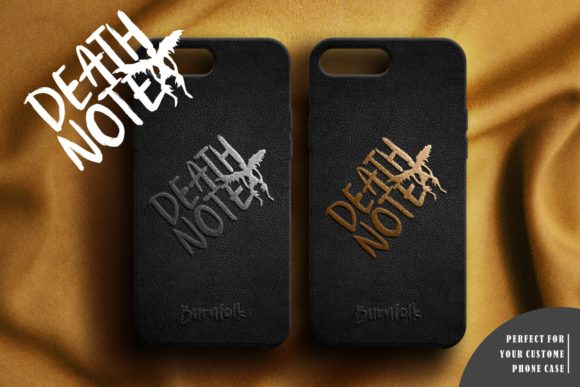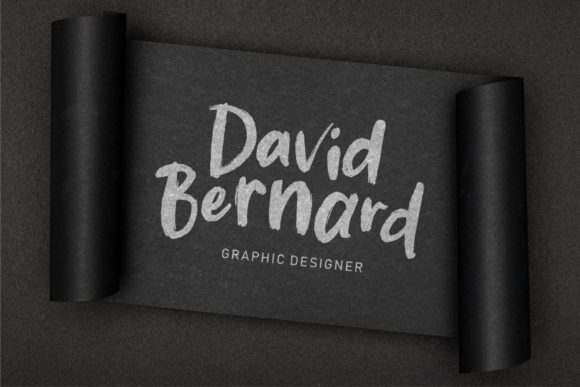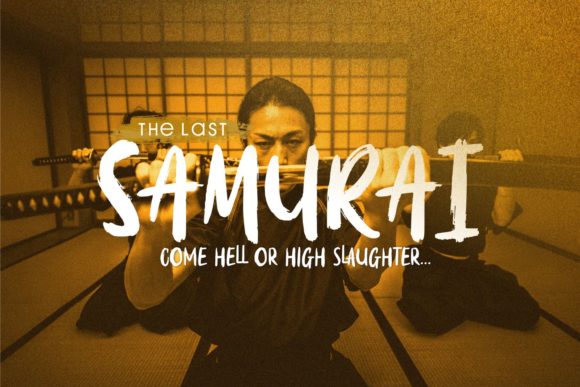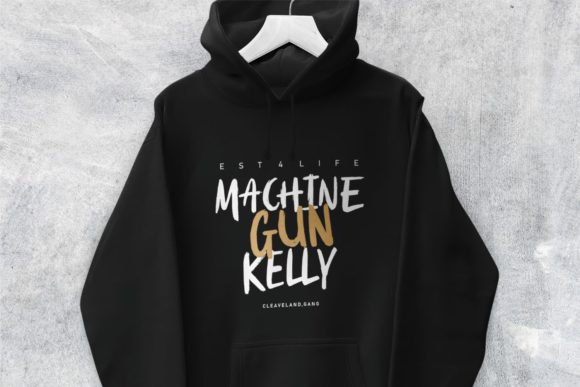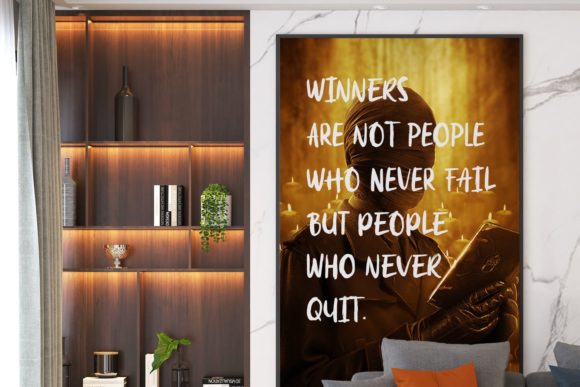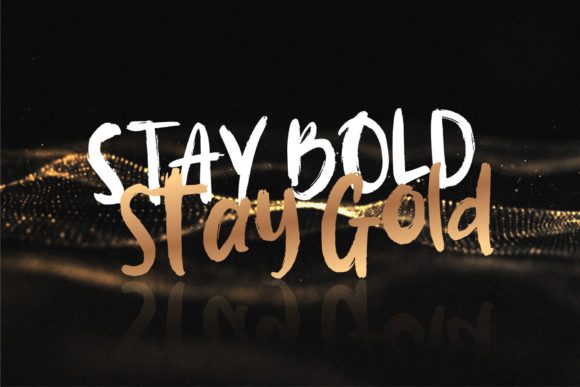
The Perfect Brush for Your Next Design
You know that moment when you’re working on a project and you just can’t seem to find the right font to tie everything together? You scroll through your favorite font libraries, try out a few different options, and then – voila! – you stumble upon the perfect one. For many designers, that moment is what makes all the late nights and creative struggles worth it.
Enter Burnfolk Font, a trendy and adorable brushed display font that’s sure to bring a touch of whimsy to any design. Whether you’re working on a branding project, a social media campaign, or a wedding invitation, Burnfolk Font is the perfect addition to your toolkit. Its unique blend of modern and vintage styles makes it a valuable asset for designers looking to add some personality to their work.
Burnfolk Font Key Features
- Unique Characteristics: The font features a unique blend of distressed and hand-drawn elements, giving it a rustic, vintage feel.
Burnfolk Font Review
I recently had the chance to work with the Burnfolk Font, and I must say it’s been an interesting experience. Let’s dive into what I liked and didn’t like about this font.
- Unique aesthetic: The Burnfolk Font has a distinct, hand-drawn feel that can add a lot of character to a design.
- Customizable: The font comes with various styles and weights, allowing designers to mix and match to achieve the desired look.
- Great for headlines: The Burnfolk Font’s bold, eye-catching quality makes it perfect for use as a headline or title font.
- Limited legibility: At smaller font sizes, the Burnfolk Font can become difficult to read, making it less suitable for body text.
- Not suitable for long blocks of text: Due to its unique, hand-drawn style, the Burnfolk Font can become tiresome to read when used for extended periods.
Overall, the Burnfolk Font is a great choice for designers looking to add a touch of personality to their projects. However, it’s essential to use it judiciously and in moderation, especially when it comes to body text. With a solid understanding of its limitations, the Burnfolk Font can be a valuable addition to any designer’s toolkit.
Use the Burnfolk font to add a personal touch to your designs, such as in logos, titles, or headings.
The Burnfolk font is perfect for:
• Creating a unique and personal brand identity
• Adding a touch of whimsy to your designs
• Creating eye-catching titles and headings